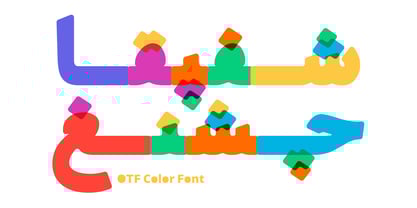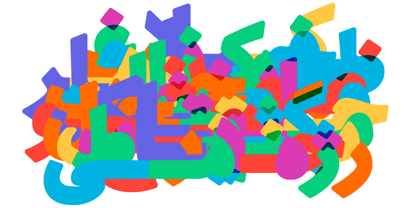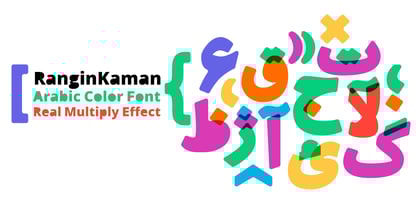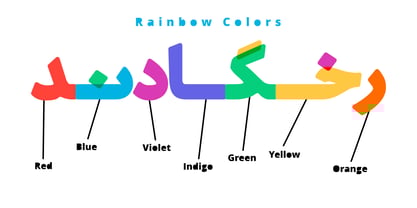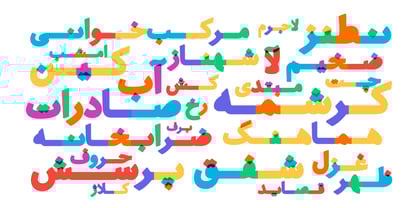
RanginKaman
The RanginKaman Font Family was designed by Shahab Siavash and published by Si47ash Fonts. RanginKaman contains 1 styles. More about this family
Remember Rangarang font? The color font inspired by other fonts of mine Siah. This is another colored font based on that typeface and also an UNOFFICIAL Persian Arabic version of the famous Latin color font Gilbert.
Chromatic or Color fonts are fairly new. And Persian Arabic color fonts are extremely rare.
RanginKaman [means Rainbow] font comes in with a wonderful color set (7 colors of rainbow). And also the first font that actually has glyphs and characters with Multiply and Blending color effect in it. If you look closely at the glyphs, you'll see those color effects in them.
RanginKaman font is great for entertainment design, posters, business cards, website titles, magazine illustrations, logotypes,... There are countless options!
Shahab Siavash, the designer has done more than 30 fonts and got featured on Behance, Microsoft, McGill University research website, Hackernoon, Fontself, FontsInUse,... Astaneh and Hezareh text and headline fonts, Yaddasht and Yadgar handwrting fonts,... already got professional typographers, lay-out and book designers' attention as well as some of the most recognizable publications in Persian Arabic communities.
My name is Shahab Siavash. Other than designing fonts, I am a graphic designer with more than 15 years of experience. An awarded critic, a jury member, author of 3 books, featured in dozens of books in England, France, USA,… with 5 individual typography exhibitions, and participated in several international group exhibitions in Germany, Turkey, Greece,…Featured on AdobeMAX, Behance, Microsoft, McGill University, FontSelf, FontsInUse, Hackernoon and trusted by thousands of professional designers, artists, publications like Rowzaneh, Ofoq, Rasm, Alborz, Atraf, Ihum, Michka, Porteghal,… Big brands like PicsArt, ManotoTV, EMH Production, Filimo, Bomrani Band, Banimode,.. 47fonts provides all creatives with dozens of text, headline, multicolor, calligraphic, handwriting, display and non-cursive fonts.They have been featured in several books like DesignAndDesign Vol. 2, New Illustration With Type, About Font, RubaiFont,… and also being showcased in multiple exhibitions (solo or group) in Turkey, Japan, Germany, Greece,…Oh! I almost forgot! 47fonts are the only Arabic font foundry providing all you font lovers with color fonts!And here’s the catch: It’s not only Arabic! Most 47fonts support Latin characters too!Besides commercial 47Fonts, I provide tailor-made custom typography solutions for clients of all sizes, helping brands, supporting visual identities, providing language localizations to facilitate distinctive brand assets.I’ve also designed original, custom fonts to give some of my top clients to have a total freedom over their typographic needs. Also, I would rework commercial 47Fonts to deliver affordable, tailored solutions that embody a brand’s distinct personality, embed logos, or include flexible licensing options. Take a look at some of these projects and services I can provide you with: Custom FontsBespoke type solutions to enhance the identity of your organization. Font ModificationYour changes to my fonts or your corporate and official fonts Character Set ExtensionSupport for additional languages, new characters, symbols and logos Optimizing FontsReducing fonts file size, removing unnecessary glyphs Generating WebFontsOf your brand’s fonts or my fonts Creating Color FontsBased on my fonts or your preferred chosen fonts Adding/Fixing Arabic DiacriticsProfessionally adjusted for all characters and ligatures Make Custom Ligatures, Style Sets, Alternative glyphsTo be automatically applied by typing preferred words or phrases Experience the beauty and power of Arabic fonts with the stunning collection of Si47ash Fonts. Whether you’re looking for a classic script font, a modern sans-serif, or something in between like a handwritten, display, grunge, dirty or an exciting color font, this collection has the perfect typeface for your project. 47Fonts are available for licensing for a wide range of uses, from personal to commercial and professional projects. Get them now!What is a Multicolor Font, and how can you design one? +Latin & Arabic fonts to DownloadTranslated by Google. I’ll be revising and editing all Blog posts soon.To clarify, multicolor (colored) fonts are not standard fonts colored using graphic design software. Instead, each character or glyph in a multicolor font is inherently designed with multiple colors. These colors can consist of one, two, three, or more distinct layers. Imagine stacking several layers in Photoshop, each with a different color, to create a vibrant, multicolored letter. Multicolor fonts function similarly but are installed and used like any standard font, allowing seamless typing and editing.Unlike other approaches where designers provide multilayered PSD or AI files for typography enthusiasts to download or purchase, multicolor fonts are TTF, OTF files and ready to use.Understanding GlyphsIn font design, a glyph refers to the individual representation of a character in a font. For example, in Persian/Arabic, the letter “ت” (Teh) has four glyphs: “تـ”, “ـتـ”, “ـت”, and “ت”. This glyph concept applies to all letters in Arabic or Latin fonts, as well as numbers and symbols.A Brief HistoryMark van Wageningen of Novo Typo recently wrote, “Why do designers assume fonts must be black and white? The world around us is colorful—web design is vibrant, and Hollywood no longer produces black-and-white films. Yet type designers remain bound by monochrome fonts.”Historically, this wasn’t always the case. Before mechanization and digitalization, typography embraced color. Early type designers used hand-typesetting, lithography, typewriters, bitmap fonts, and eventually TrueType fonts. However, technical limitations stripped color from letters. For instance, in 1874, William H. Page & Co. created a multicolored “M” using woodblock printing, part of a colorful type design catalog.Modern printing techniques and web technologies have removed these barriers, enabling the resurgence of color in typography. The rise of color emojis on smartphones and tablets, each composed of layered, multicolored designs, has further fueled this trend.Bitmap Color Fonts & New TechIn a 2013 blog post, FontLab, a font design software developer, noted: “Although we introduced visual fonts eight years ago, the type design community initially overlooked the concept. The introduction of the Color Emoji font in iOS and Mac OS X 10.7 sparked the change. Now, major tech companies—Apple, Microsoft, Google, Mozilla, and Adobe—have proposed standards for multicolor fonts, aiming to integrate color into OpenType features.”Technical ConceptsFive primary methods for creating colored fonts have been proposed: A: Bitmap (non-scalable) – Fixed-quality bitmap glyphs. B: Scalable Bitmap – Bitmap glyphs that maintain quality when zoomed. C: Zoomable Bitmap – A variation of scalable bitmaps. D: Layered Glyphs – Each layer has a single flat color. E: Animated Glyphs – Complex, animated glyphs with bitmap content. Proposals from Major CompaniesFour key proposals, based on the above concepts, have been introduced: Google (GOO) – CBDT/CBLC Tables (A or B)Google’s approach uses PNG-based bitmap glyphs, introduced in May 2013. It’s unclear if these are scalable. Google’s Color Emoji project includes a Python tool for adding PNG files to CBDT/CBLC tables and provides sample multicolor fonts. Apple (APP) – sbix Table (B)Apple’s PNG-based glyphs are scalable and support formats like TIFF, SVG, PDF, and even video clips. Introduced in iOS 4 and enabled in CoreText apps since Mac OS X 10.7, this format works in TextEdit and Safari but not in ATSUI apps like Pages ’09 or Keynote ’09. The Apple Color Emoji font was introduced in Mac OS X 10.8 and iOS 6. Microsoft (MIC) – COLR/CPAL Tables (D)Microsoft’s 2013 proposal uses outline-based glyphs with fixed colors per layer. Enabled in Windows 8.1, it includes the Segoe UI Emoji multicolor font. Adobe and Mozilla (SVG) – SVG Table (E, potentially C)This sophisticated proposal supports outlines, bitmaps, gradients, and animations. Submitted to the W3C, it’s active in newer Firefox versions and is likely to become a web standard due to its versatility. Where to Find Color Fonts?Colored fonts are still emerging, and availability is limited. You can download a package of multicolor Latin fonts, including text fonts and emojis, from various sources like this one.TransType TutorialTransType, a paid program with a trial period, allows you to create multicolor fonts by layering multiple fonts. For example, to create a letter with three colored layers, design each part as a separate font with a single color. Combine them in TransType: Open the fonts in TransType .Select all fonts and choose Overlay Fonts from the Effect menu. Adjust colors, positioning, or effects like blurring .Export the multicolor font using the gray button in the top-right corner. FontCreator 10 TutorialFontCreator’s multicolor support is less robust but functional. To color glyphs: Import your font .Press Shift+F2 to open the color palette .Select a color via Hex code or the color wheel .Left-click glyphs, right-click, and choose Color > Colorize to Selected Color .To apply multiple colors to a glyph, ensure it comprises separate components, each colored individually. Enable Color Mode in the View menu to see colors in the glyph editor .Export the font via File > Export Font .For advanced editing, create the font in TransType and refine colors in FontCreator 10. Fontself Maker TutorialBut the best way is of course Fontself. There are a lot of posts, videos and tutorials about this software, so I’m going to simply embed two videos here: One is an official How-To from Fontself and the second one is an old video I created making it very simple to design Arabic color fonts in Fontself: Using Multicolor FontsMulticolor fonts are currently supported in multiple platforms, Operating Systems, Apps,… You can check the full list here.And if there is a situation which color fonts are not supported in an app or program, a black-and-white fallback glyph is gonna kick in. This limitation is expected to resolve as multicolor fonts gain broader adoption.For viewing and exporting multicolor fonts, use FontLab Pad, a free tool: Drag and drop fonts onto the canvas. Type and export as PNG, PDF, or SVG using the top-right arrow button. Or copy results to the clipboard for use in programs like Adobe Illustrator. The Future of Color FontsMulticolor fonts are still new and novel, and many typeface designers remain unfamiliar with them, some even dismissing them as not real fonts! However, as technology evolves, multicolor fonts are poised to become a cornerstone of typography, bringing vibrant, dynamic designs to text.